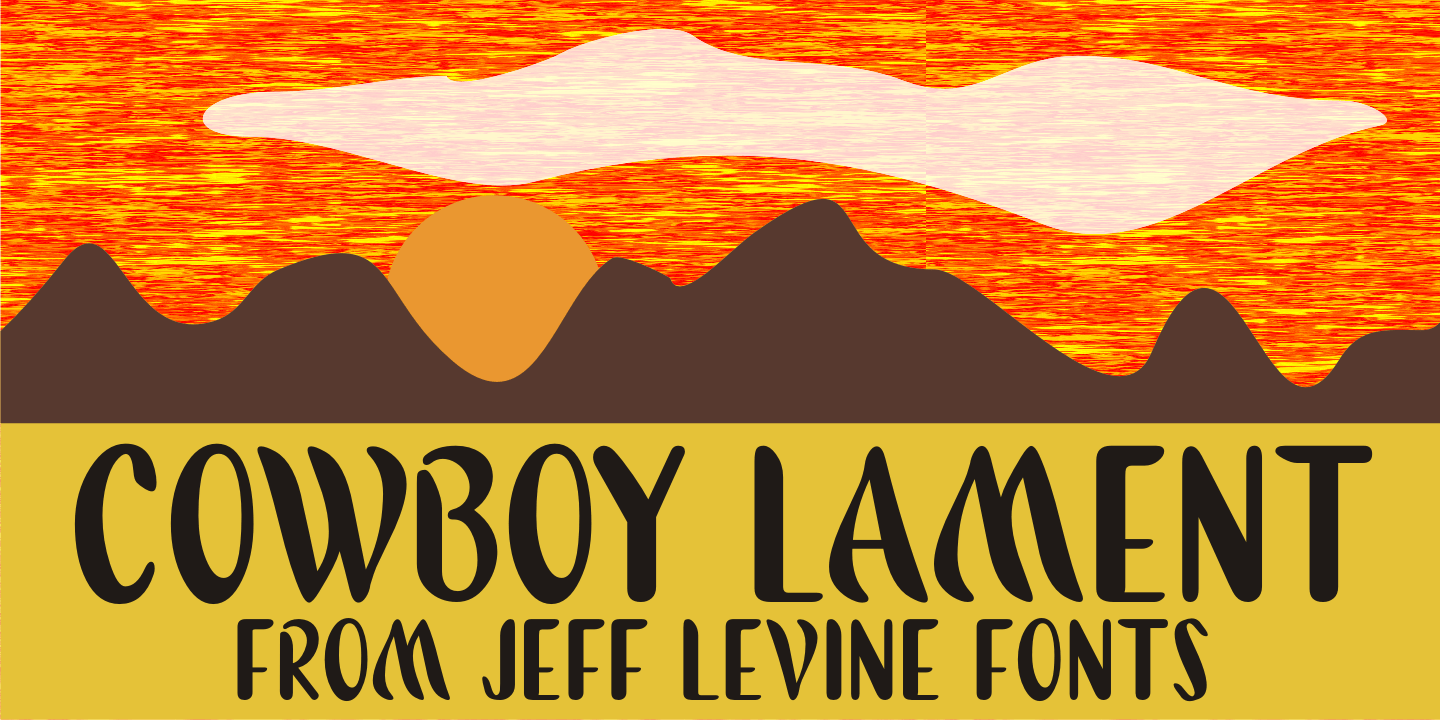
Cowboy Lament
A lament is a sad song, and the music of the cowboys of the Old West had their fair share of them. However, a vintage piece of sheet music from the early part of the 20th century with the title 'The Dying Cowboy” brought at least one positive trait to its mournful song.
The title lettering was drawn in a fashion that emulated lettering made with quick strokes of a paintbrush, and became the inspiration for Cowboy Lament JNL.